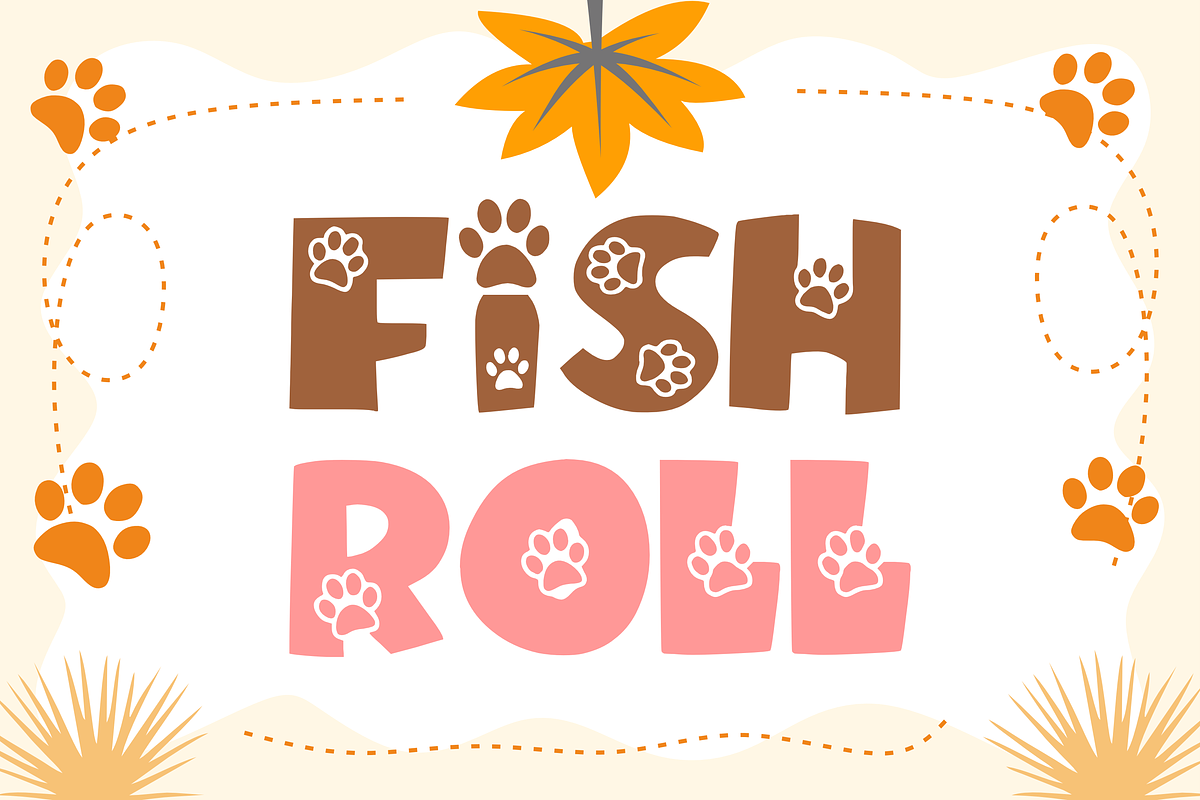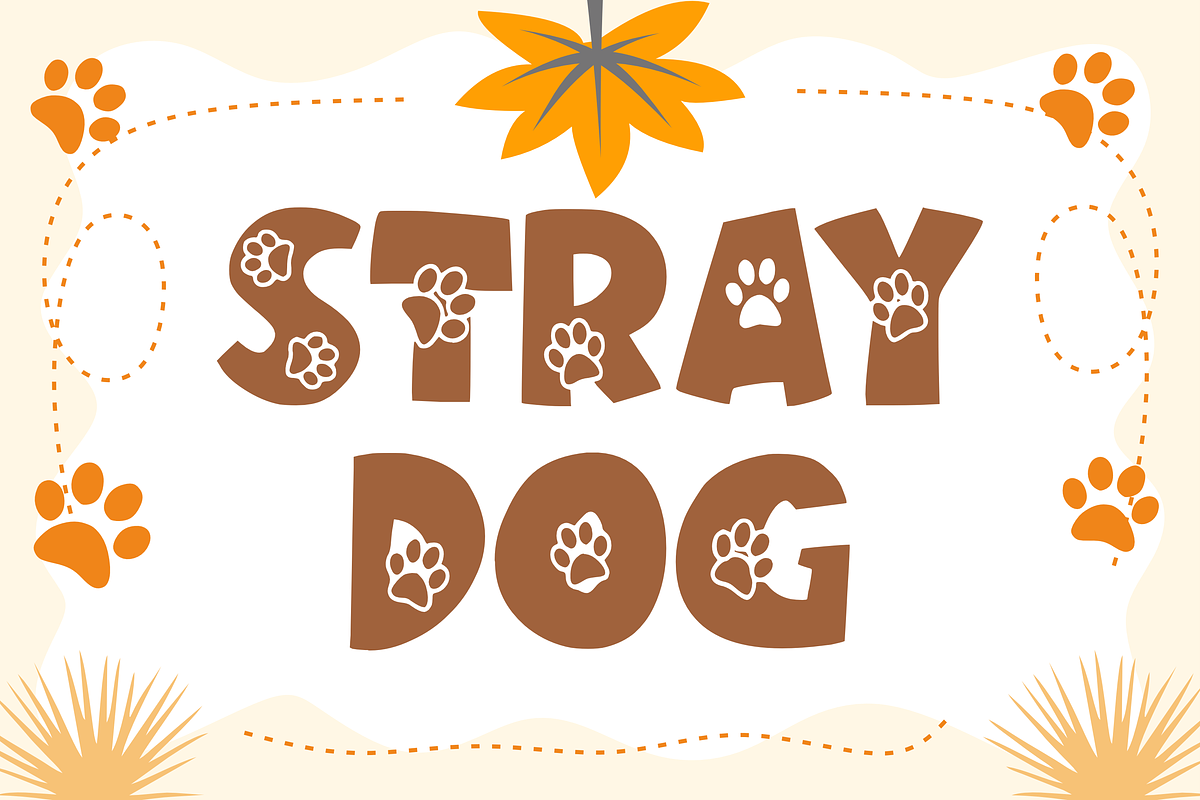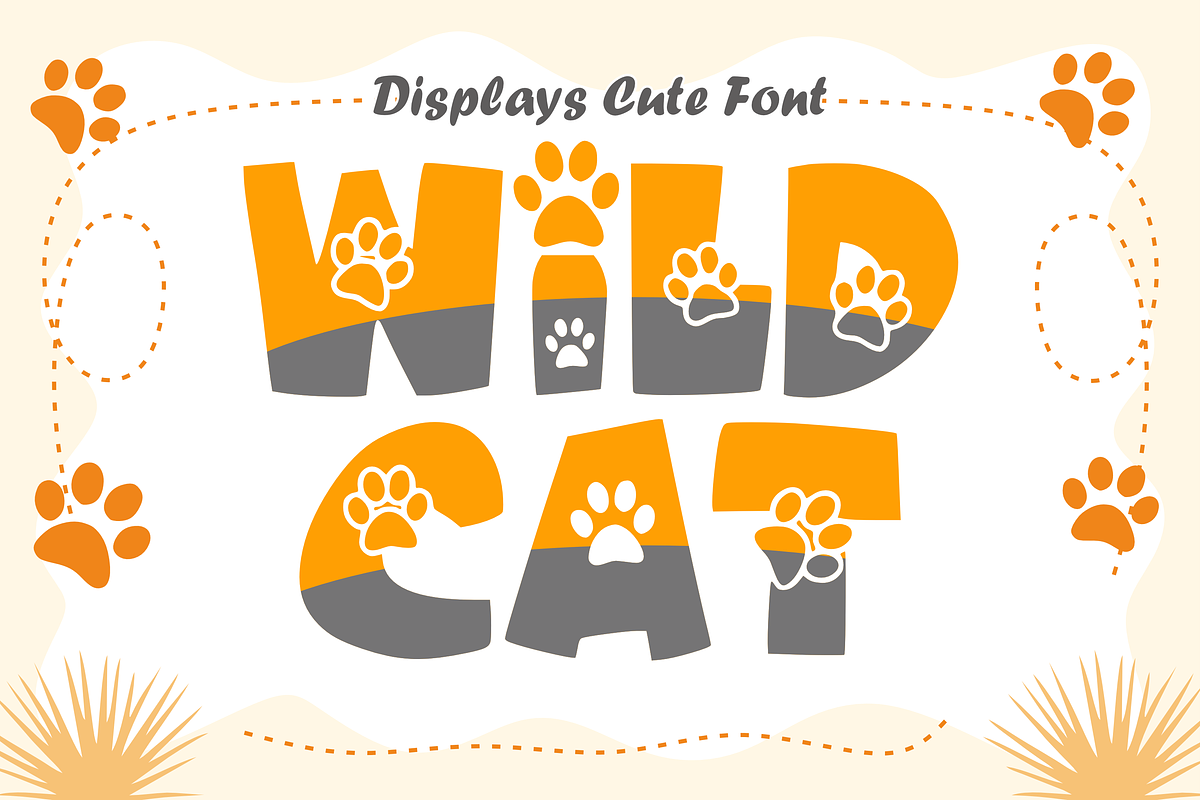
Wild Cat - Decorative Font Types
Wild Cat is a unique and charming font with an image of an animal’s paw that captures the essence of animal design. With its unique paw print and bold lines, this font evokes a cool animal feel, reminiscent of a bold lifestyle. With their unique character, wild cats add a touch of whimsy to any project, making them perfect for posters, logos, comics, advertising, animation, and creative titles that need a little touch of Nature.